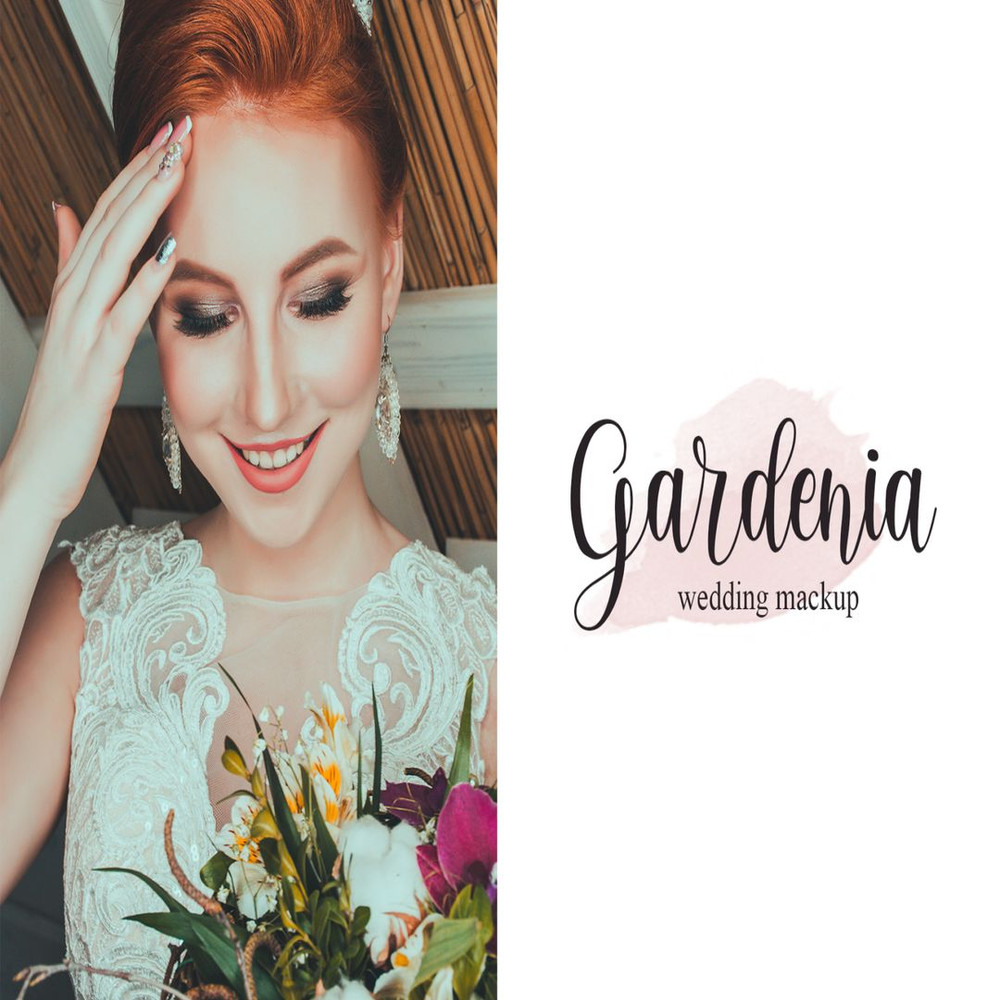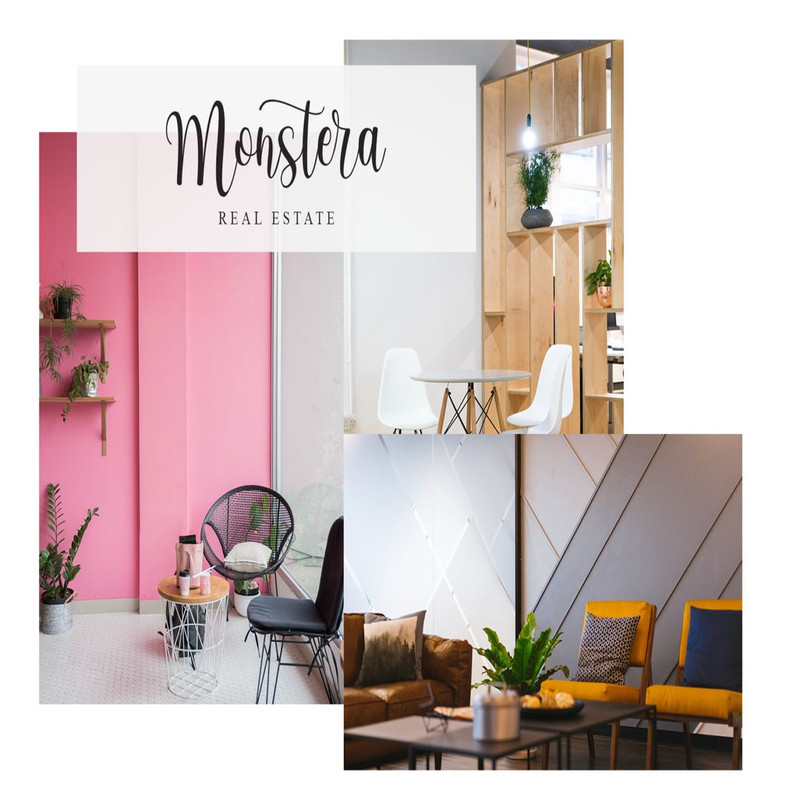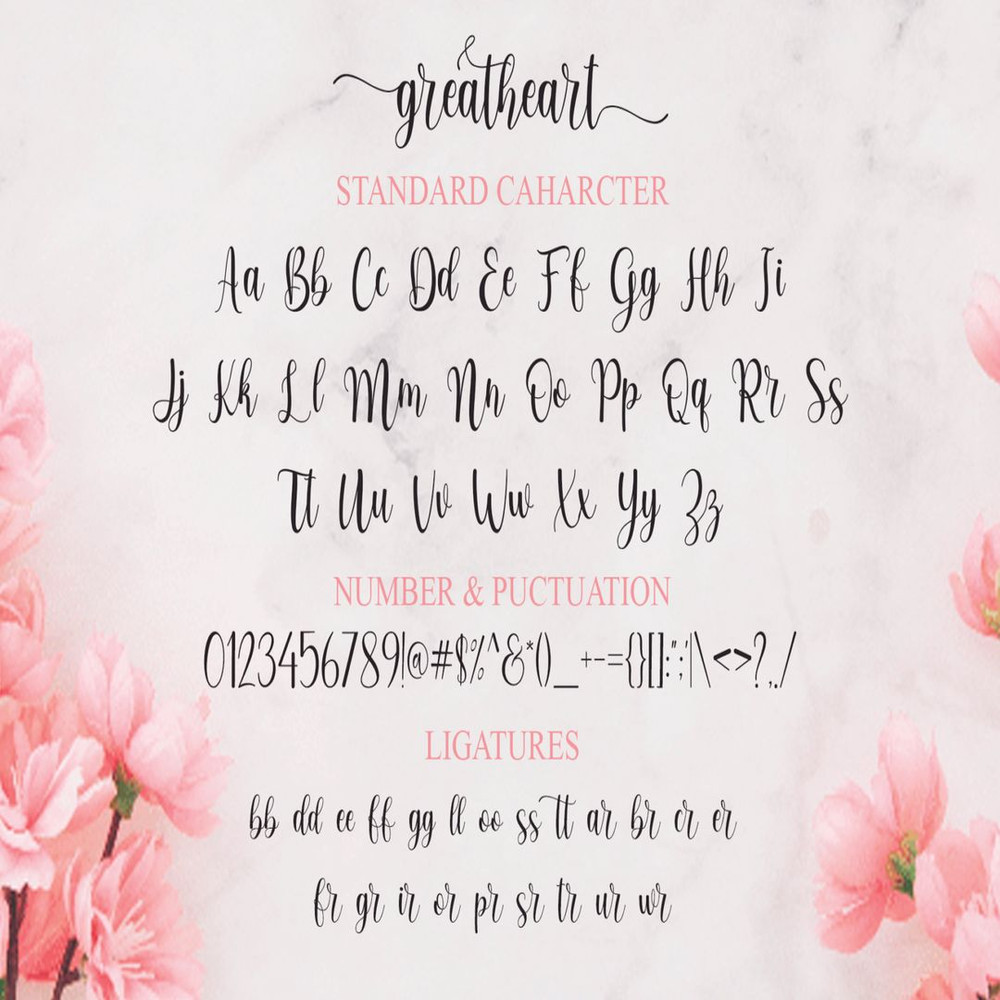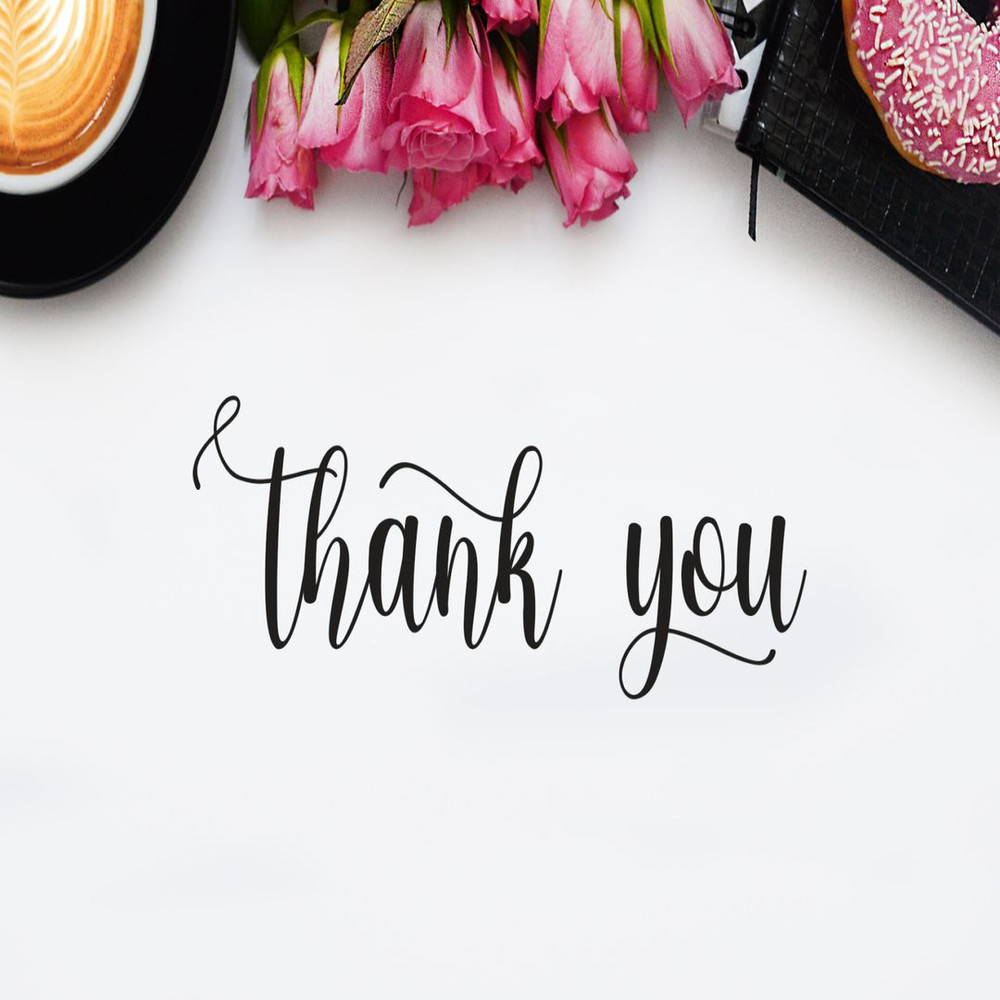
Greatheart modern calligraphy Trending Fonts - Digital Font
Greatheart is a modern beautiful calligraphy. It’s perfect for feminine, elegant, and luxurious designs. It has a fresh and modern look that can be used for logos, greeting cards, branding materials, quotes, posters, and much more.
Greatheart modern calligraphy Trending Fonts - Digital Font
Greatheart is a modern beautiful calligraphy. It’s perfect for feminine, elegant, and luxurious designs. It has a fresh and modern look that can be used for logos, greeting cards, branding materials, quotes, posters, and much more.